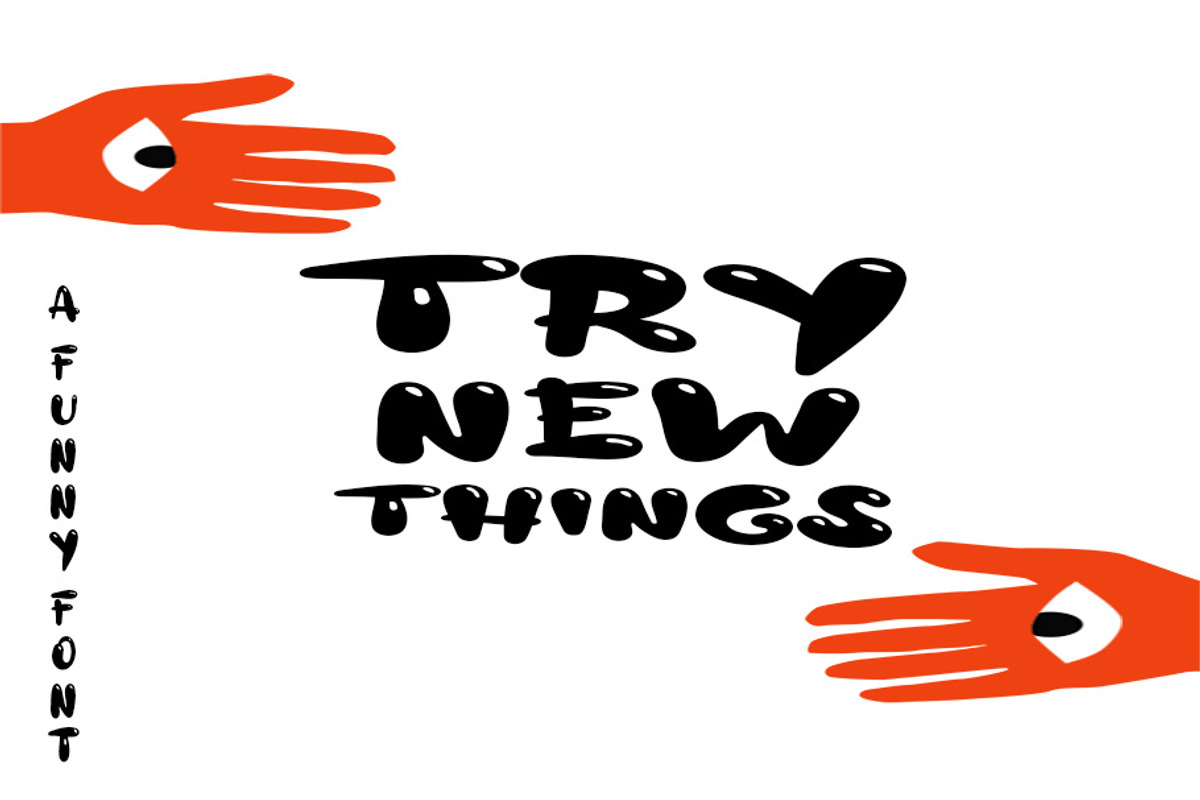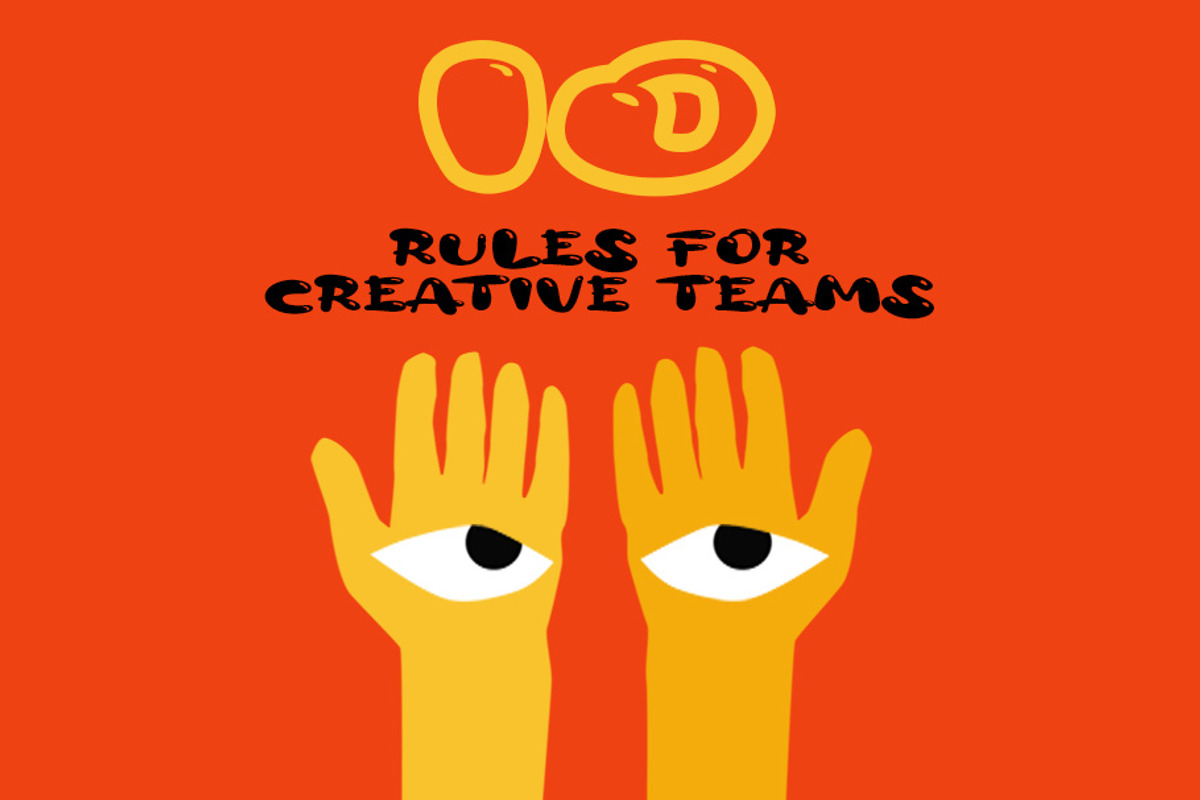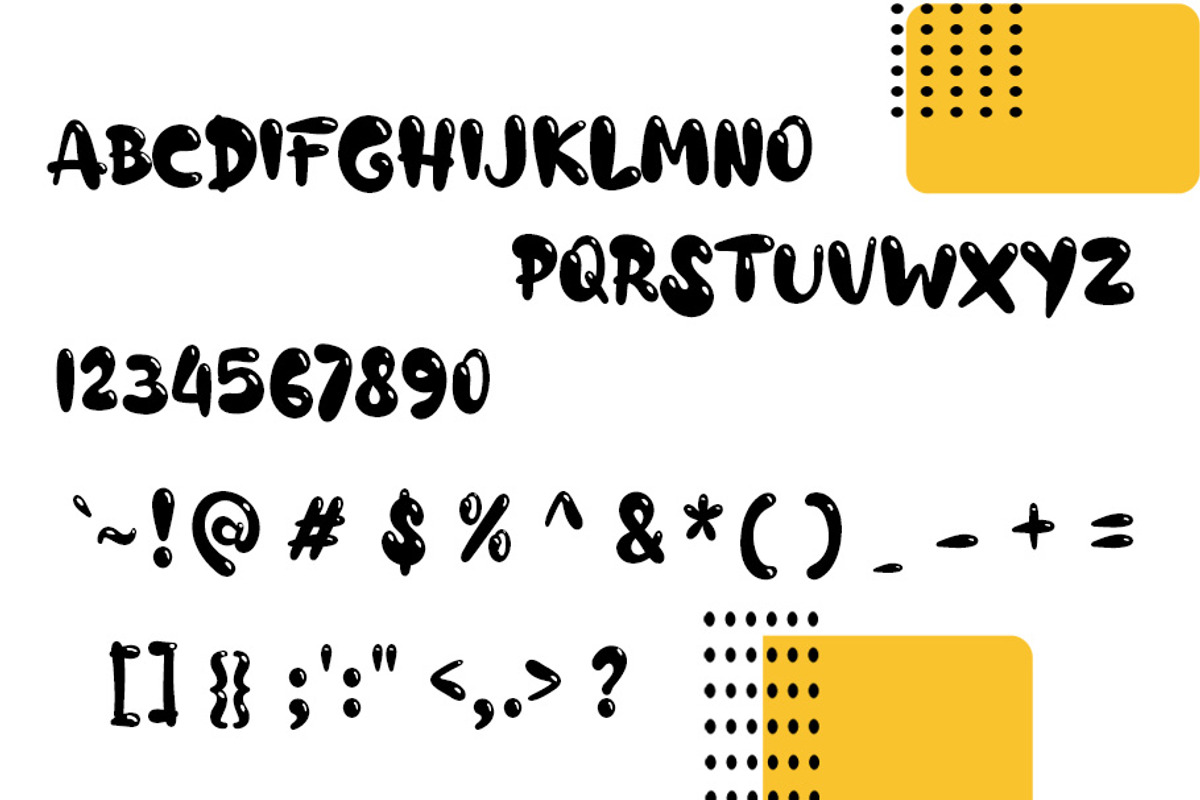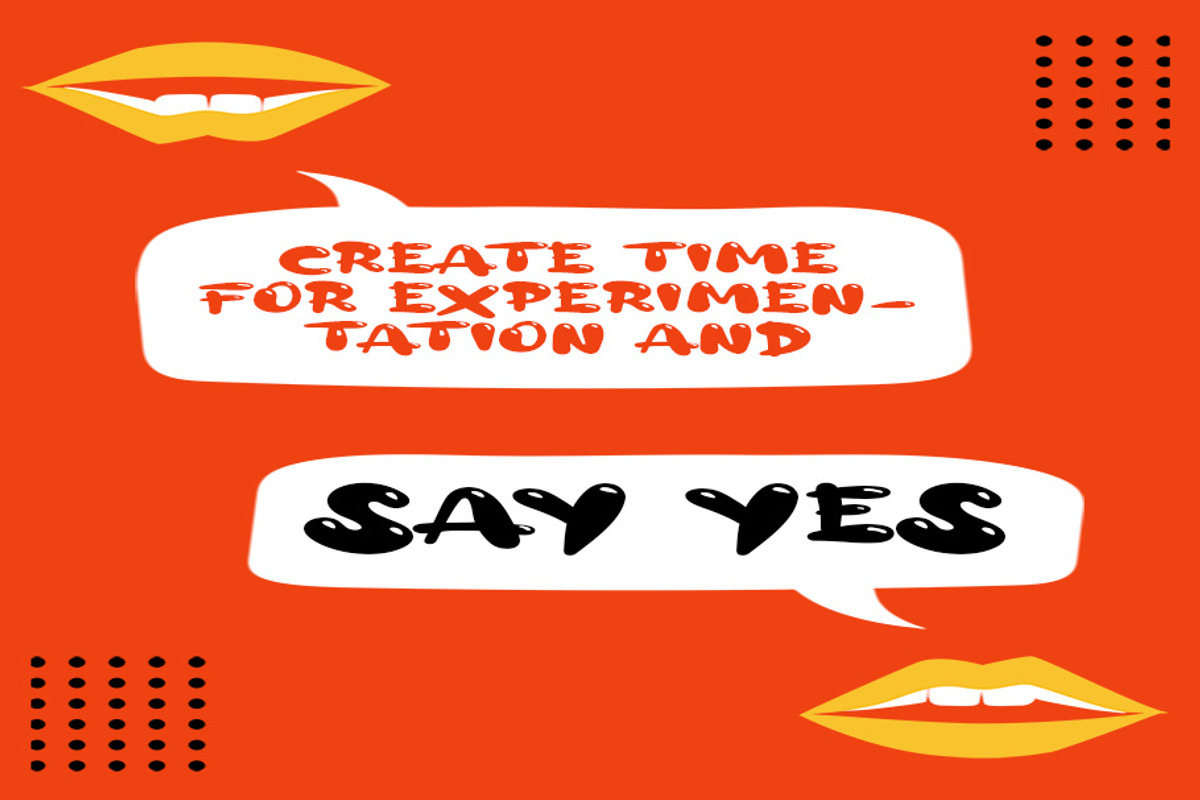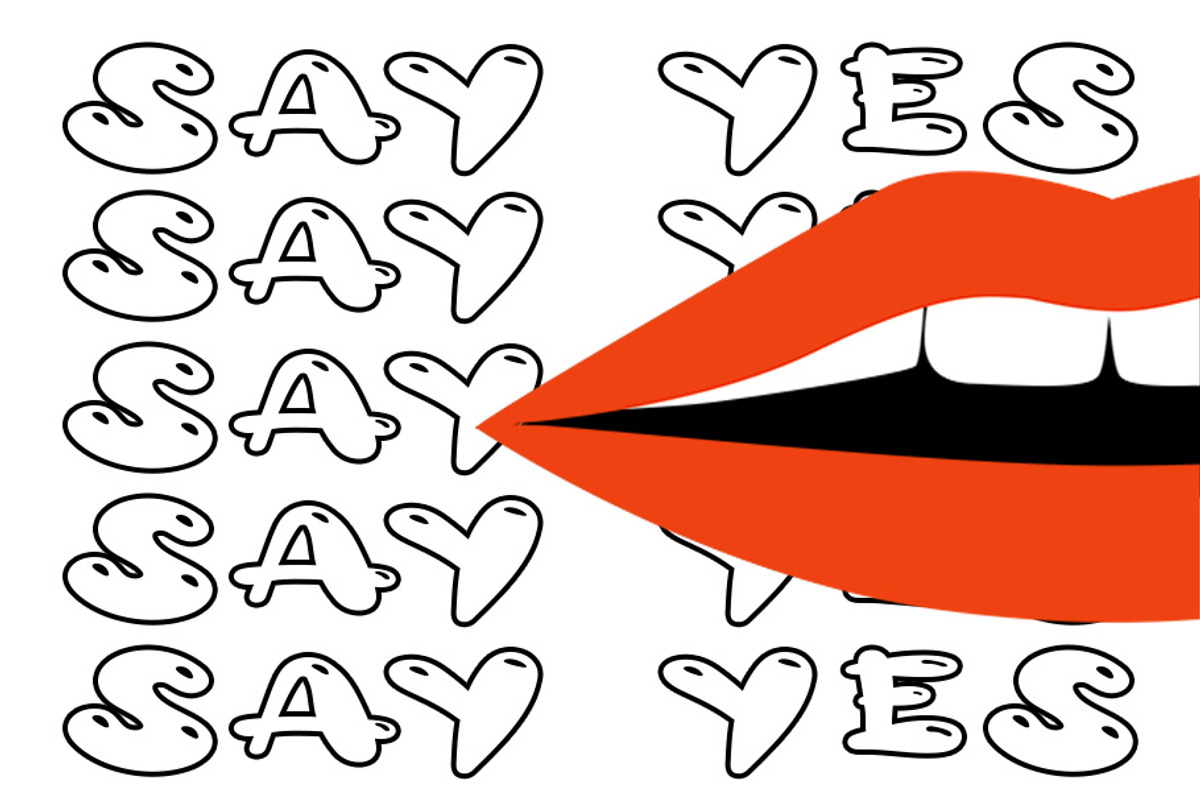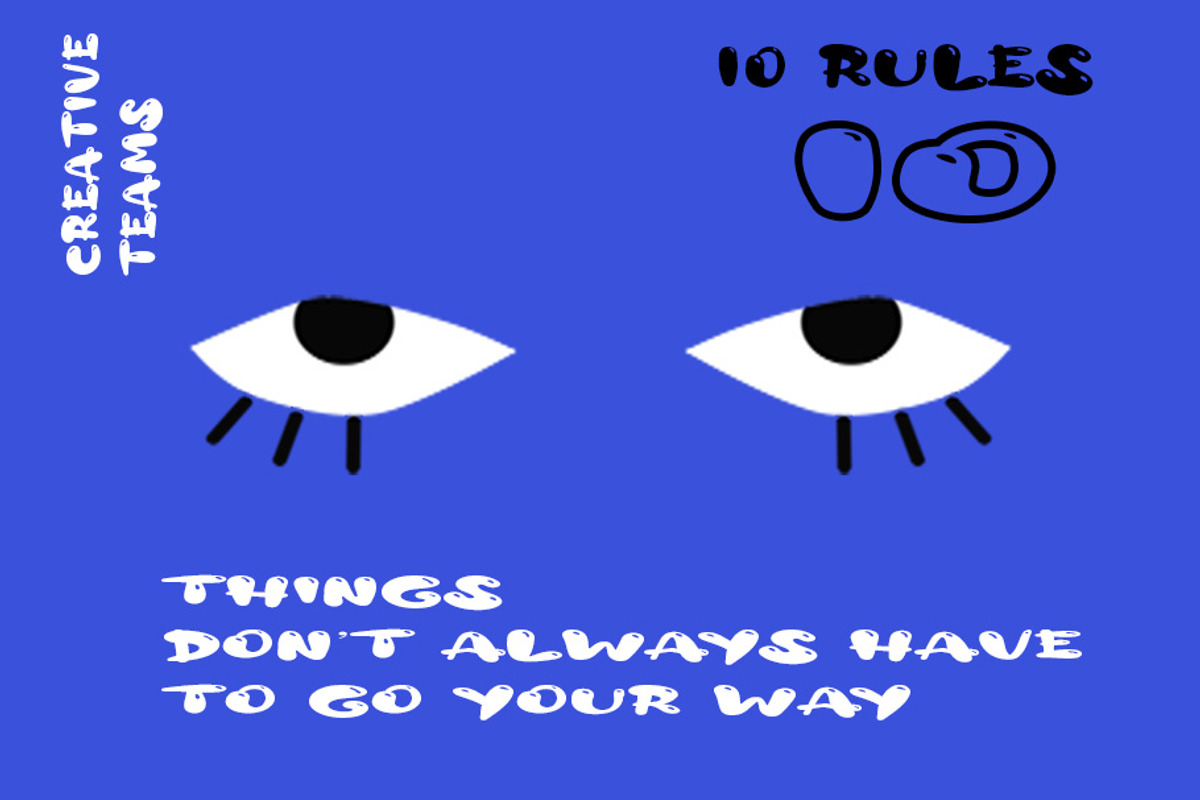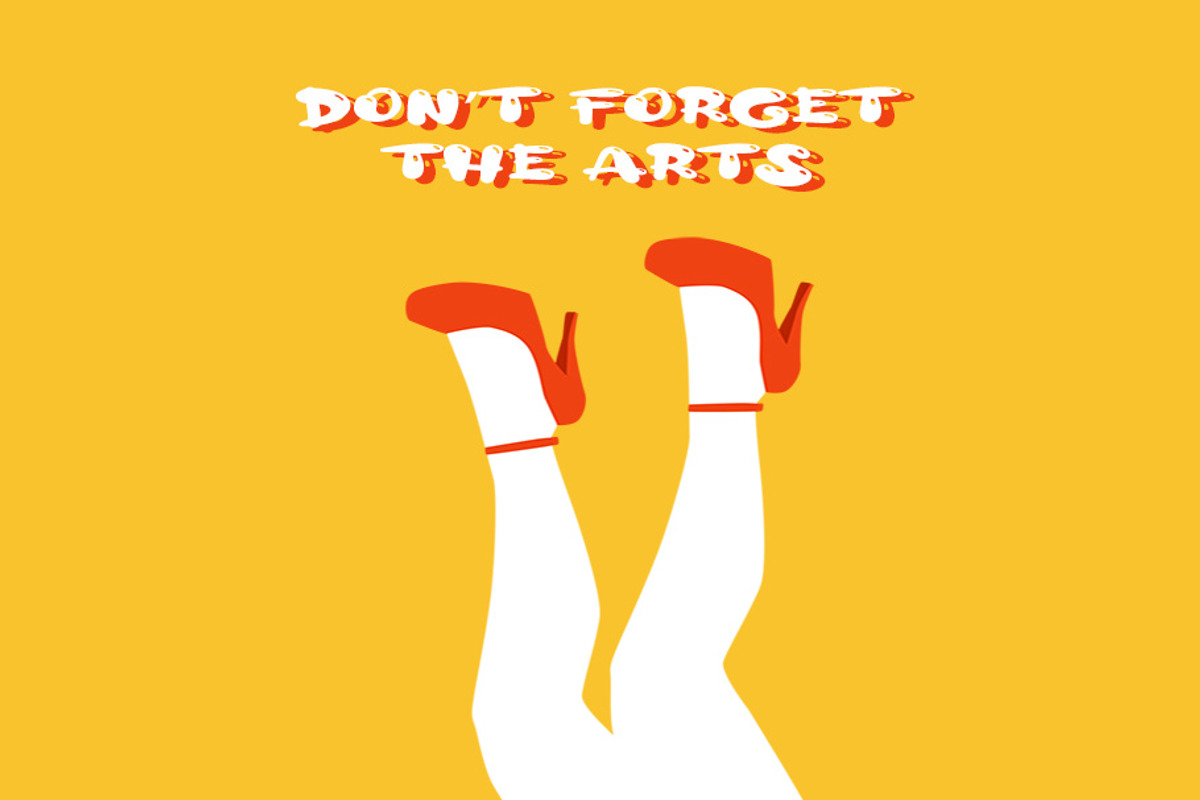
Try new things
Try new things - unny font for your creativity. Perfect for jokes, congratulations, as well as for banners, logos, business cards, etc.
Try new things is also included full set of:
- All uppercase letters
- numerals
- punctuation